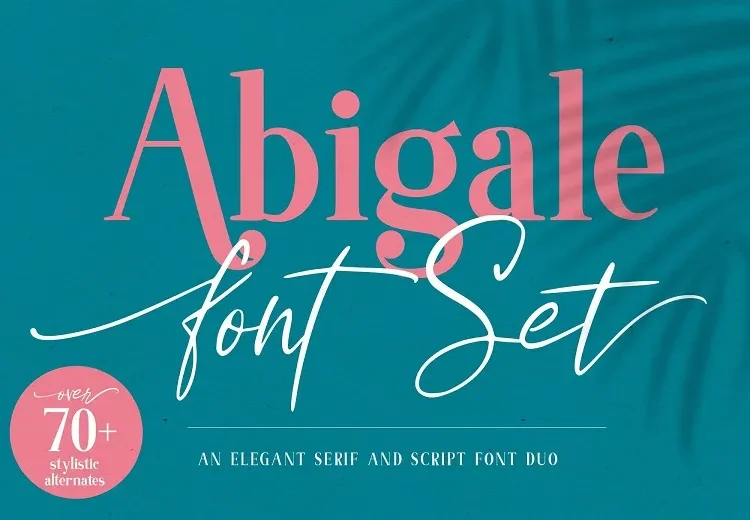
Abigale Font Duo
Abigale is a sophisticated and versatile font duo combining modern serif and script styles. This elegant pairing was designed to be neutral yet infused with contemporary design elements, making it a perfect choice for a wide range of occasions and projects.
Key Features of Abigale Font Duo:
• Elegant and Modern Design: The Abigale Font Duo strikes a balance between classic elegance and modern design. The serif font offers a timeless look, while the script font adds a touch of graceful flair, making it suitable for both formal and casual applications.
• Versatility for Any Celebration: Abigale is designed to be adaptable for any event or celebration, whether it’s Christmas, Halloween, Easter, weddings, birthdays, or graduations. Its neutral yet stylish appearance ensures that it can be used effectively in various themes and settings.
• Perfect for Various Projects: This font duo is ideal for invitations, greeting cards, event branding, social media graphics, and more. The combination of serif and script styles provides flexibility in design, allowing you to create eye-catching and cohesive visual elements.
• Neutral Yet Stylish: Abigale’s design is neutral enough to blend seamlessly with a variety of aesthetics, yet it possesses distinctive modern elements that make it stand out. This makes it a valuable addition to any designer’s toolkit.